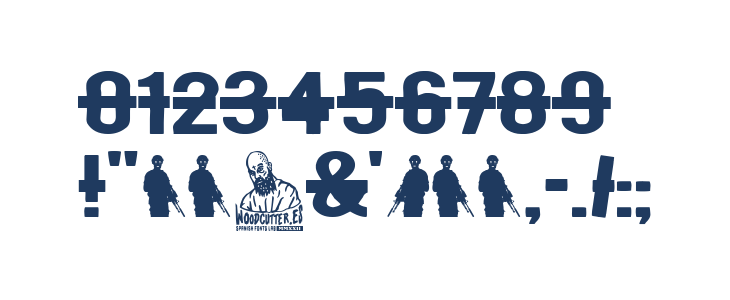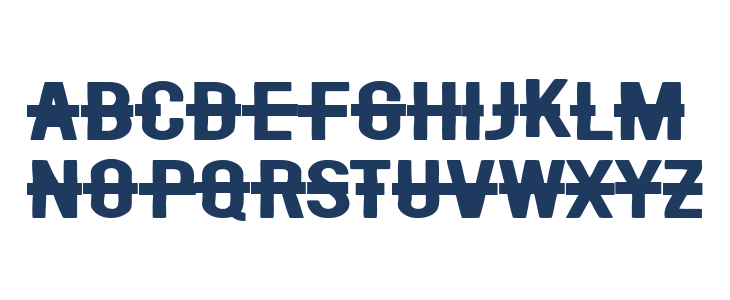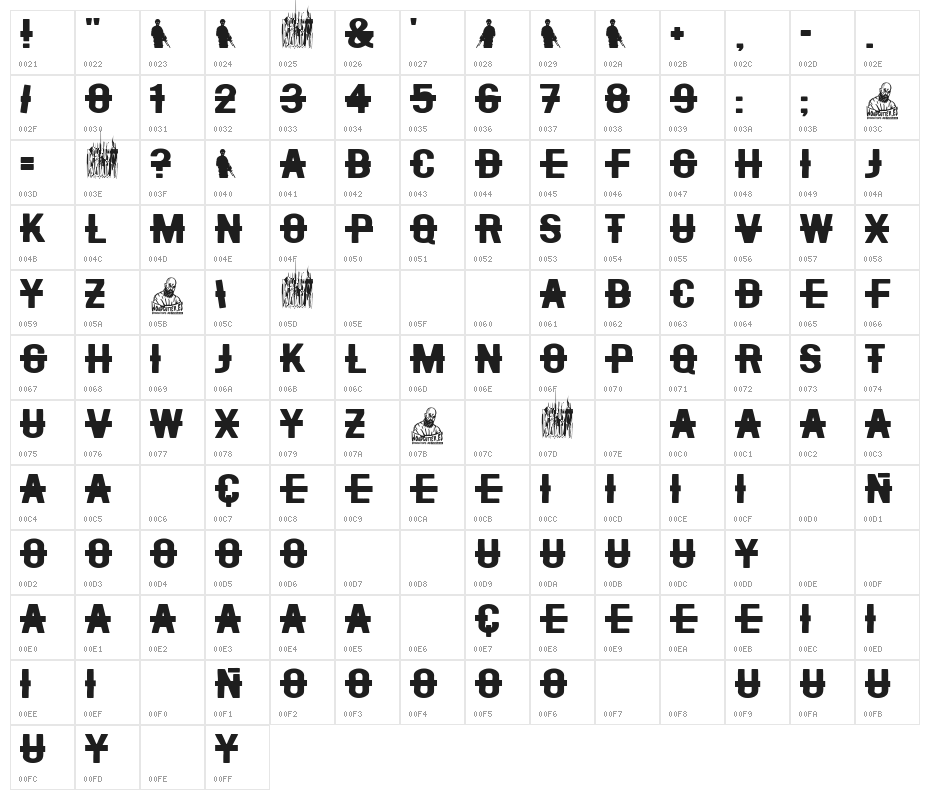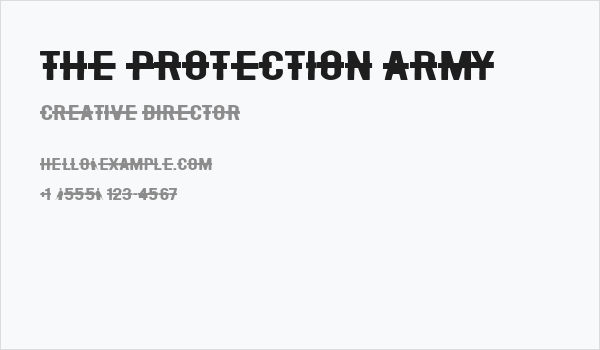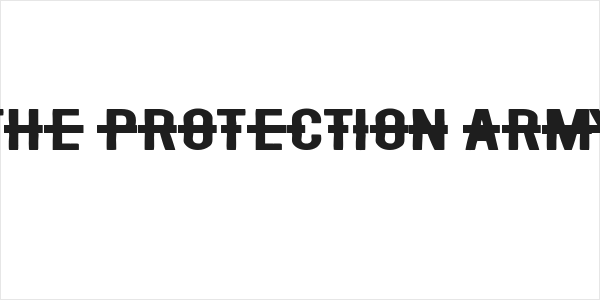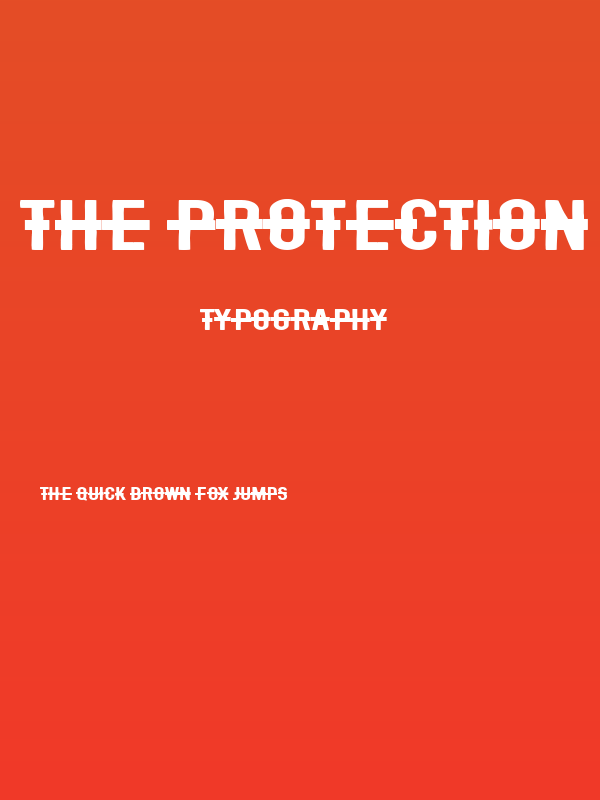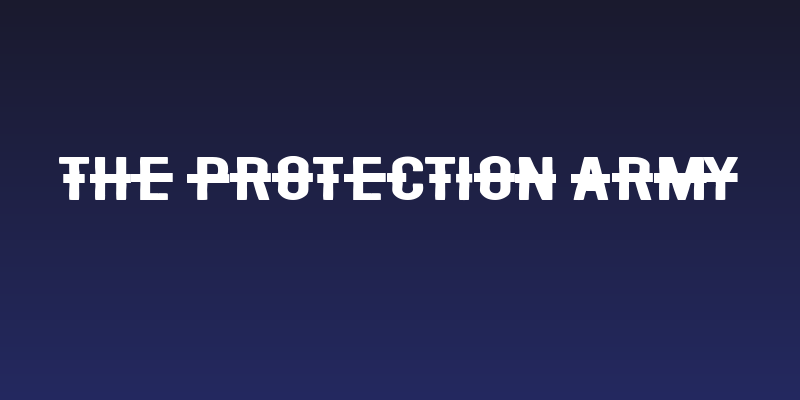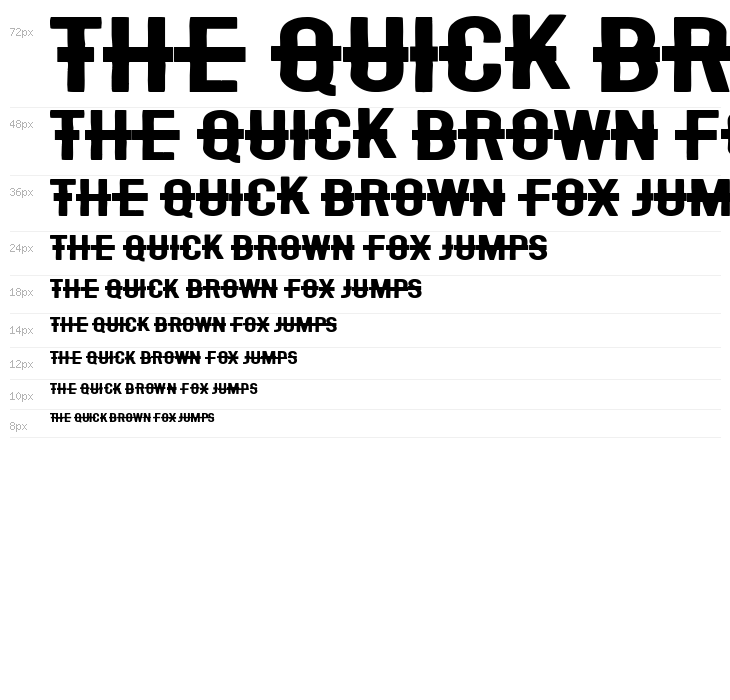
The Protection Army Font
The Protection Army Description
A bold, uppercase sans-serif font with thick horizontal strike-through lines cutting across each character, creating a strong, obstructed, and militaristic appearance. The numerals and punctuation follow the same style, and some glyphs include silhouettes of armed figures, enhancing the combative theme.
Overall StyleDecorative, Militaristic, Modern
Use CaseHeadlines, Posters, Logos, Themed graphics
Proposed ProjectsPosters, protest graphics, video game titles, military-themed branding, warning signs.